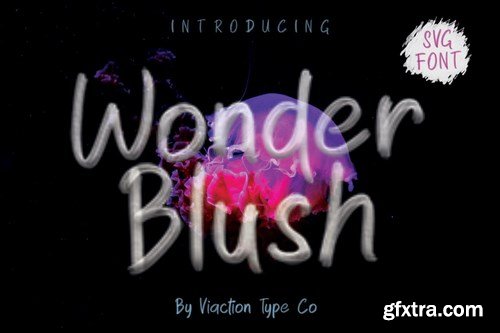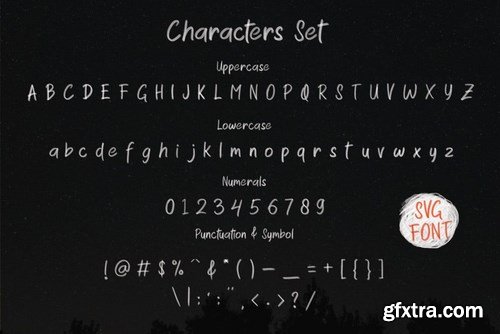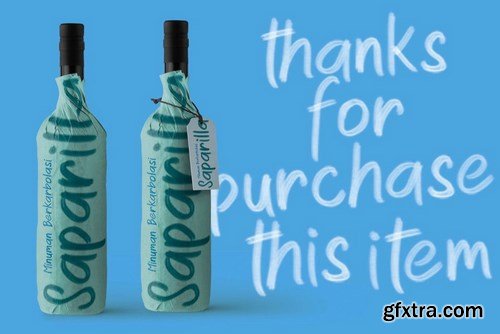
Wonder Blush SVG Font, a modern and beautiful font. The font with the original handwriting style and highly visible brush effect is perfect for all your design goals. The transparent effect is very beautiful and fits in a variety of background colors. Various examples of font usage are displayed in the preview image. Wonder Blush is very suitable for clothing designs, invitations, logotypes, web headers, packaging, quotes, merchandise, and other design works.
Uppercase
Lowercase
Numerals
Punctuation & Symbol